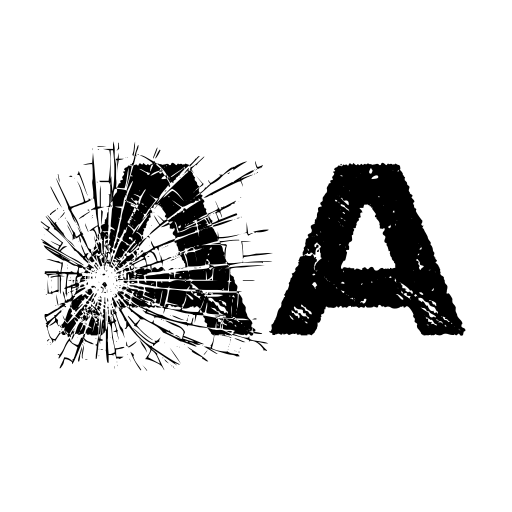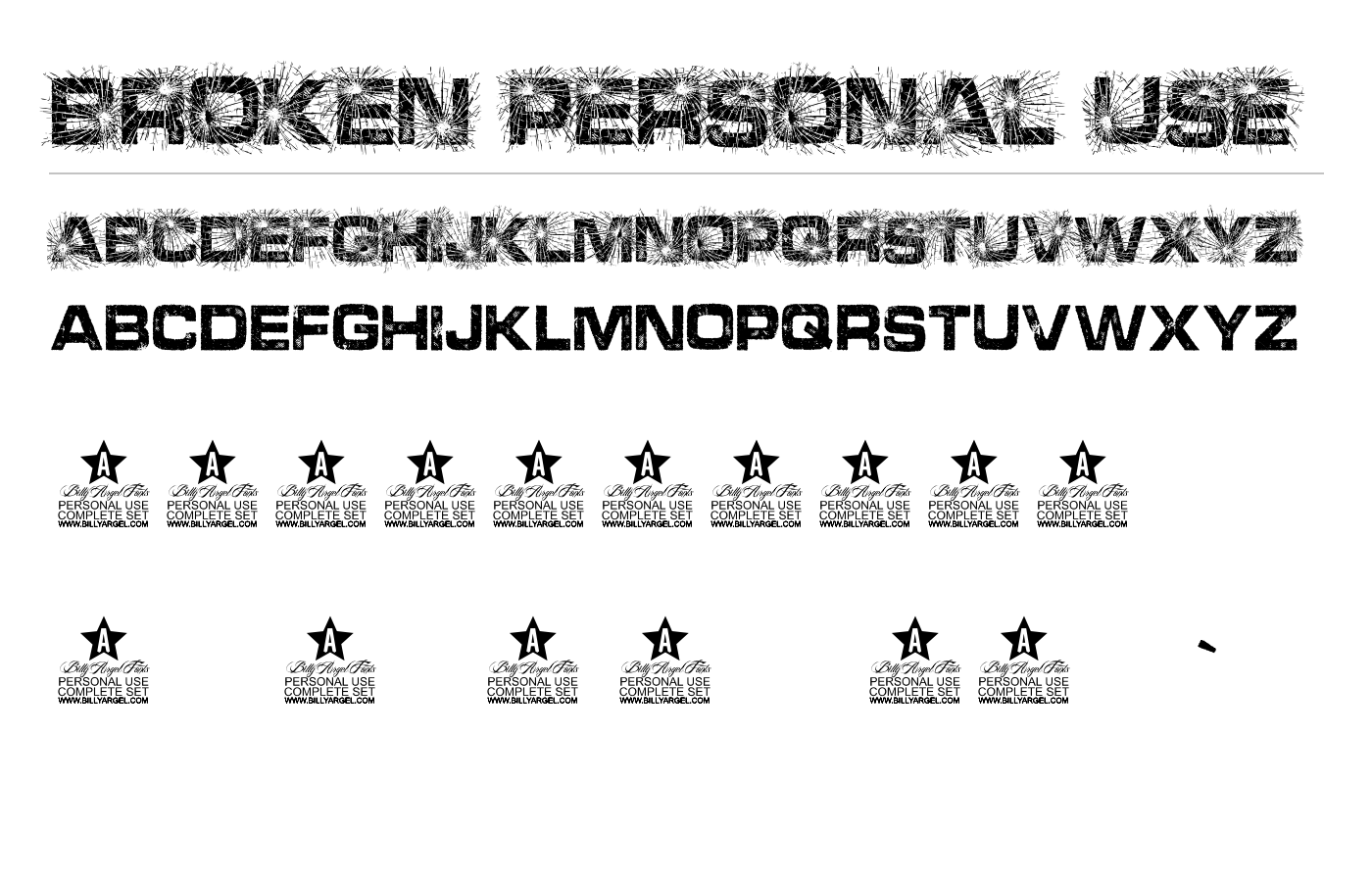
Broken Personal Use is a bold, all-caps sans serif display font characterized by its rough, fractured texture that creates a distressed, grunge-like effect. Its strong, condensed letterforms with irregular, sharp breaks convey a raw and edgy personality, making it ideal for designs that require a rebellious or urban vibe. This font works best in bold headlines, posters, or edgy branding where a striking, unconventional look is needed to grab attention.
BROKEN PERSONAL USE Font
About BROKEN PERSONAL USE Font
| Font family | BROKEN PERSONAL USE Font |